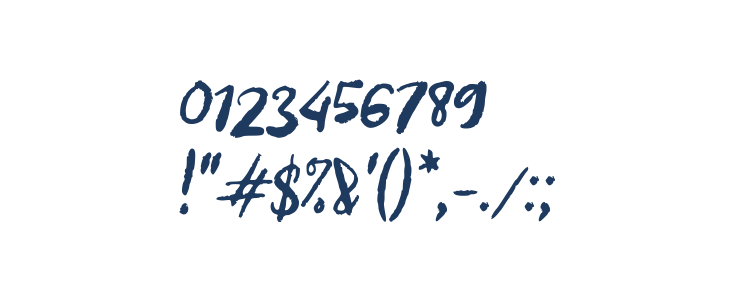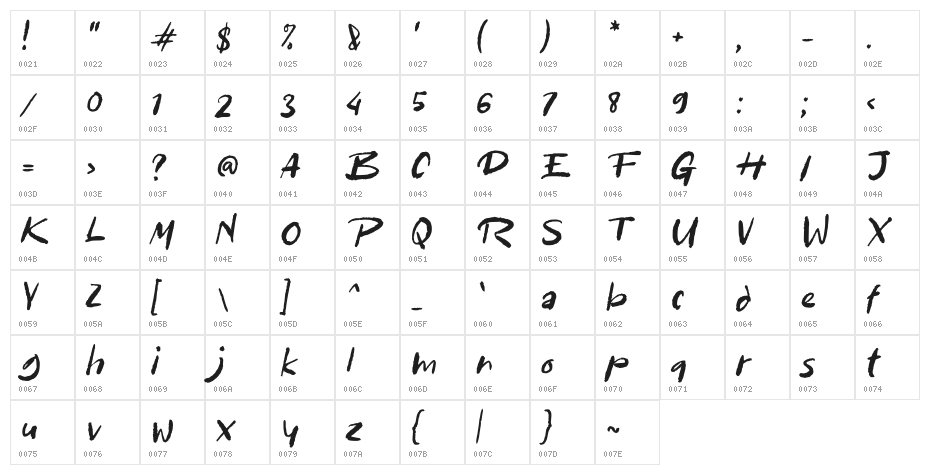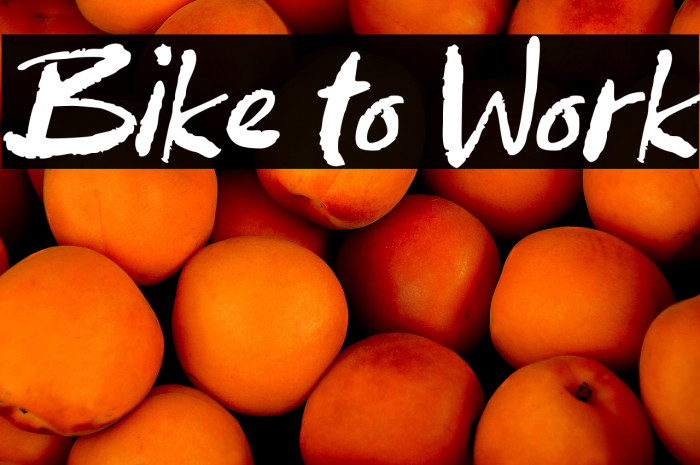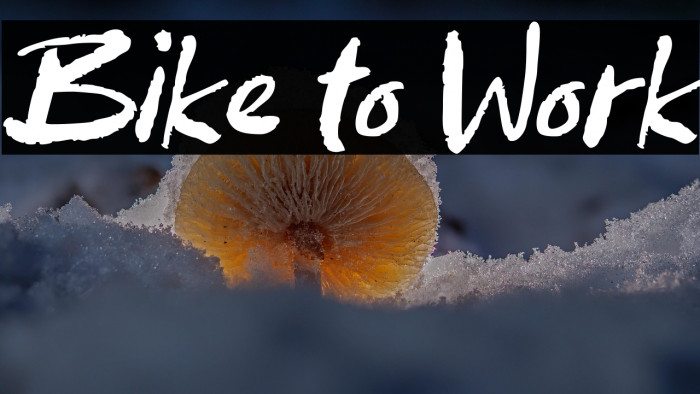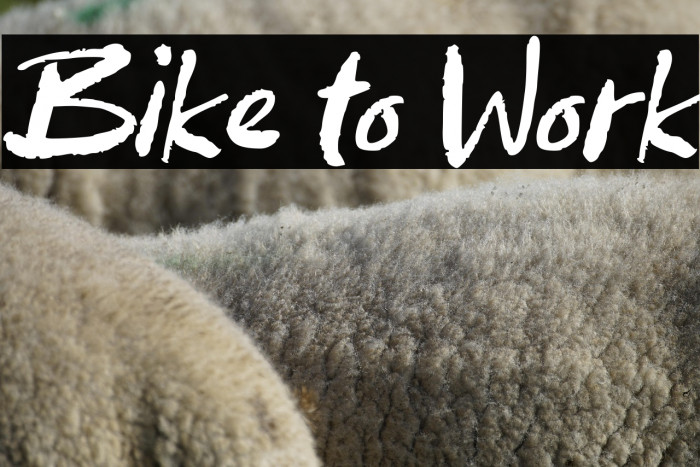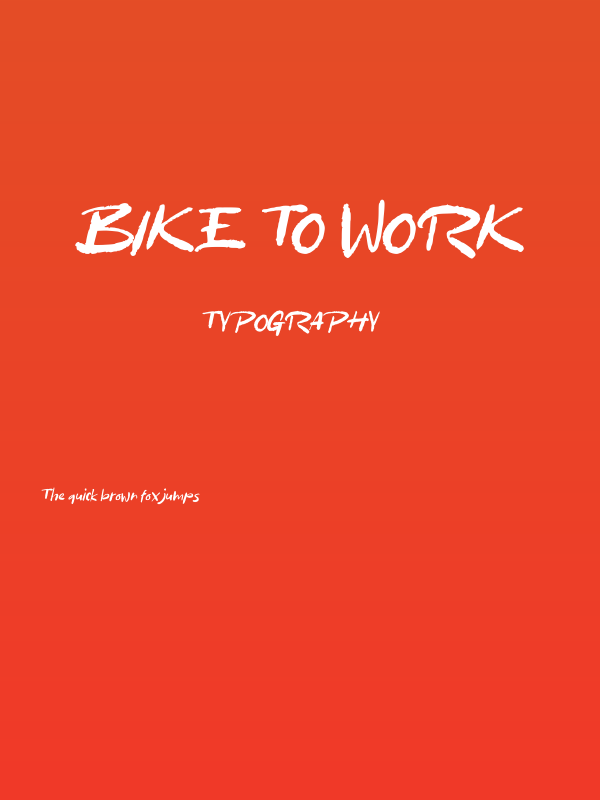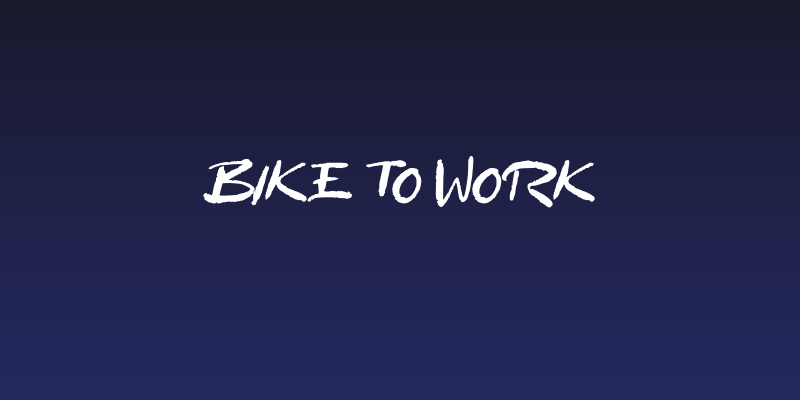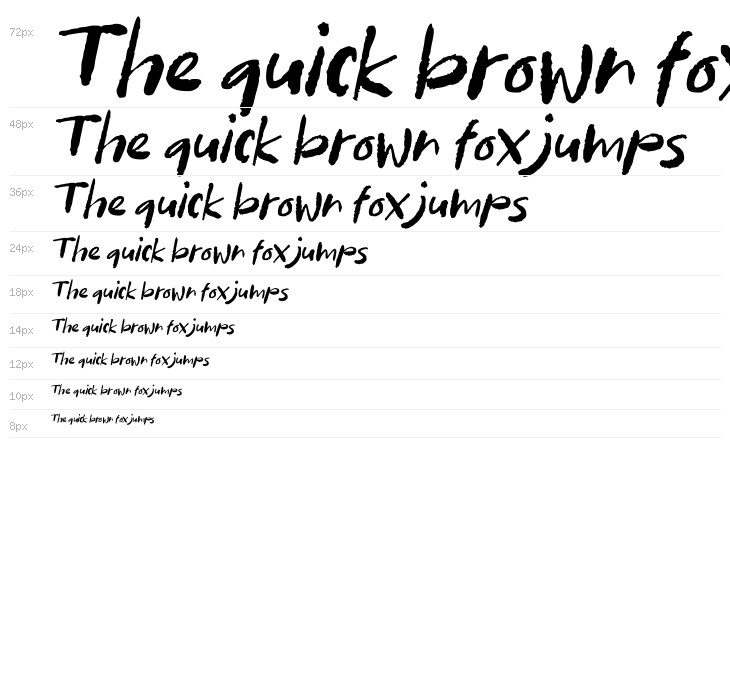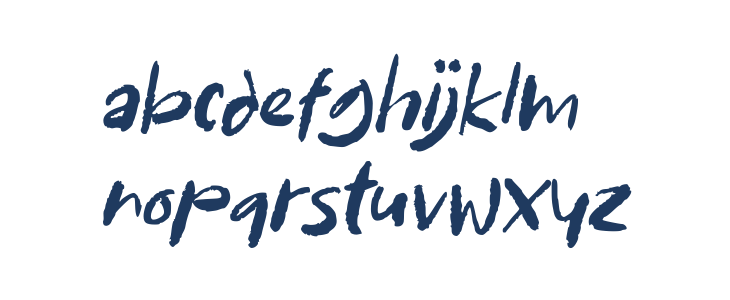
Bike to Work Font
Bike to Work Description
This font exudes a dynamic and energetic feel, characterized by its bold, brush-like strokes that give it a handwritten appearance. The letters are slightly slanted, adding a sense of movement and fluidity. The uppercase and lowercase letters maintain a consistent style, with the uppercase being slightly larger and more pronounced. Numbers and special characters follow the same aesthetic, ensuring uniformity across all elements. The overall look is informal yet impactful, making it suitable for creative and expressive projects.
| Proposed Projects | Ideal for posters, branding, and creative projects that require a personal touch. |